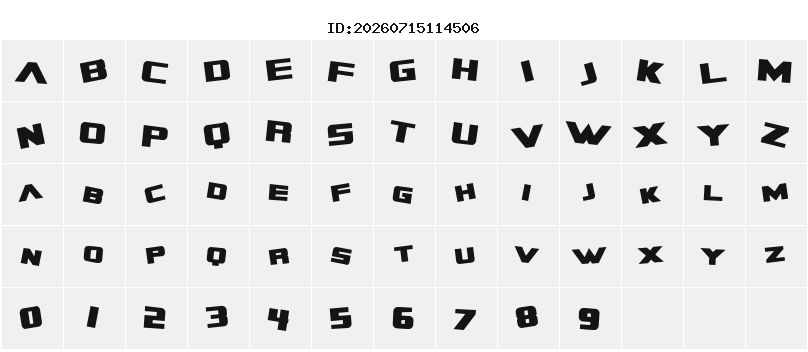
Zero Gravity Extended Preview
• Font Name: Zero Gravity Extended
• Full Font Name: Zero Gravity Extended Bold
About Zero Gravity Extended.ttf
Zero Gravity Extended.ttf is a modern, elegant sans-serif font designed for ultimate readability and visual harmony. Perfect for branding, headlines, web design, and print materials.